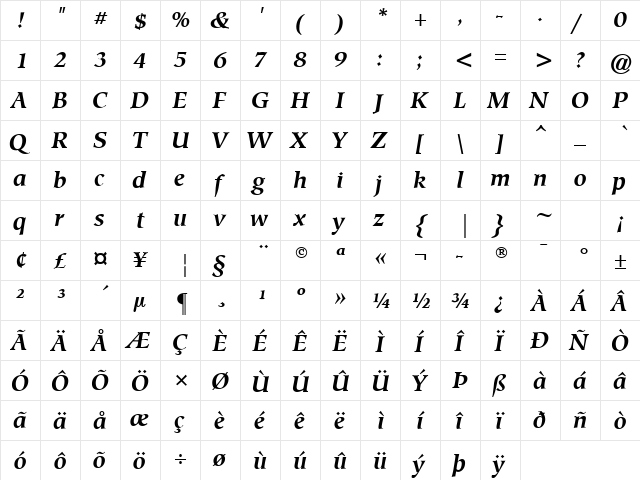
Blue Sky 2 Bold Italic
Design Context for Blue Sky 2 Typeface
Blue Sky 2 is a composed and adaptable typeface that performs quietly and consistently across a wide range of design contexts. Its italic angle brings a sense of urgency and motion to the letterforms. The heavy weight commands attention and anchors typographic hierarchies.
Pro Tip: Use Blue Sky 2 for emphasis, pull quotes, and subheadings where its slanted energy can add rhythm to the layout.